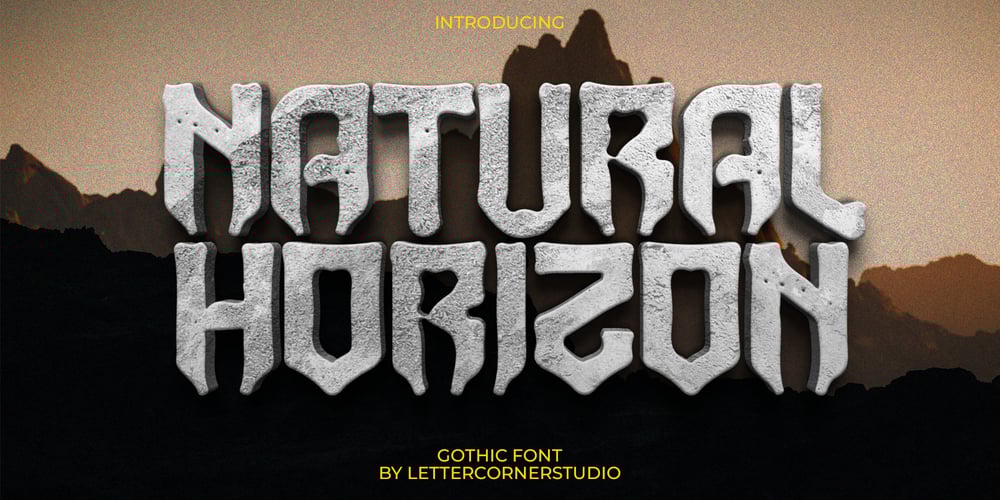
Natural Horizon
Natural Horizon font
Natural Horizon Font Family was designed by Muhammad Afif Ersya and published by Mevstory Studio. Natural Horizon contains 1 styles and family package options. Natural Horizon is a typeface that has a vintage, bold, clean, simple look. The basic shape of this typeface arranged side by side with simple, unique joints and accents. Perfect for logo, brand and apparel projects.Gatka Typeface Include : Letters Alternates Numeral Multilingual Support We highly recommend using a program that supports OpenType features and Glyphs panels like many of Adobe apps and Corel Draw, so you can see and access all Glyph variations.